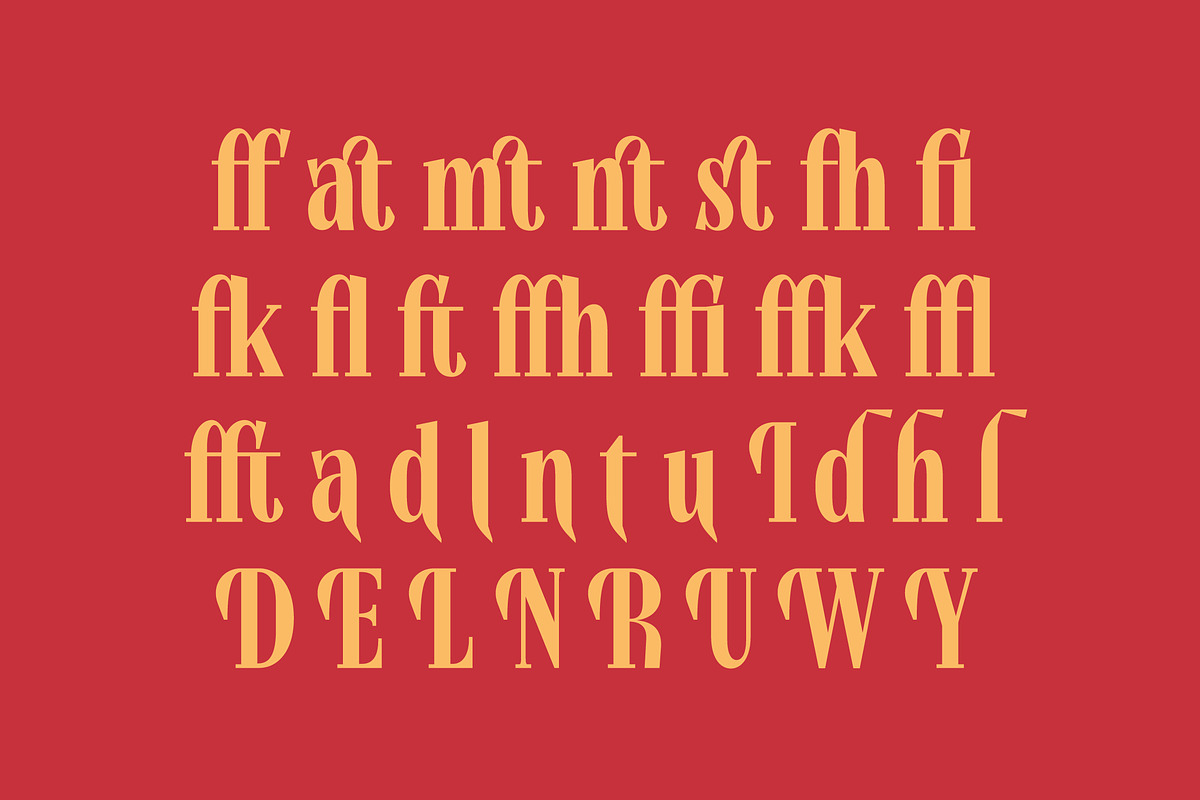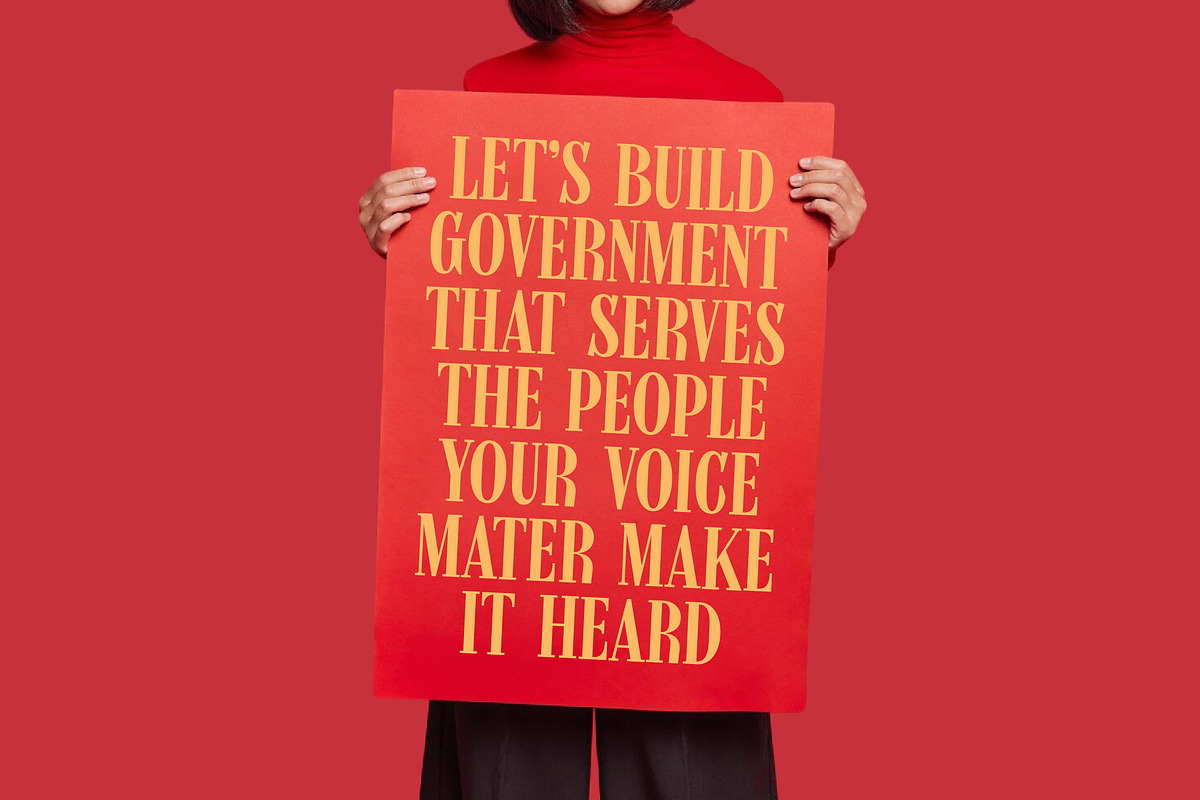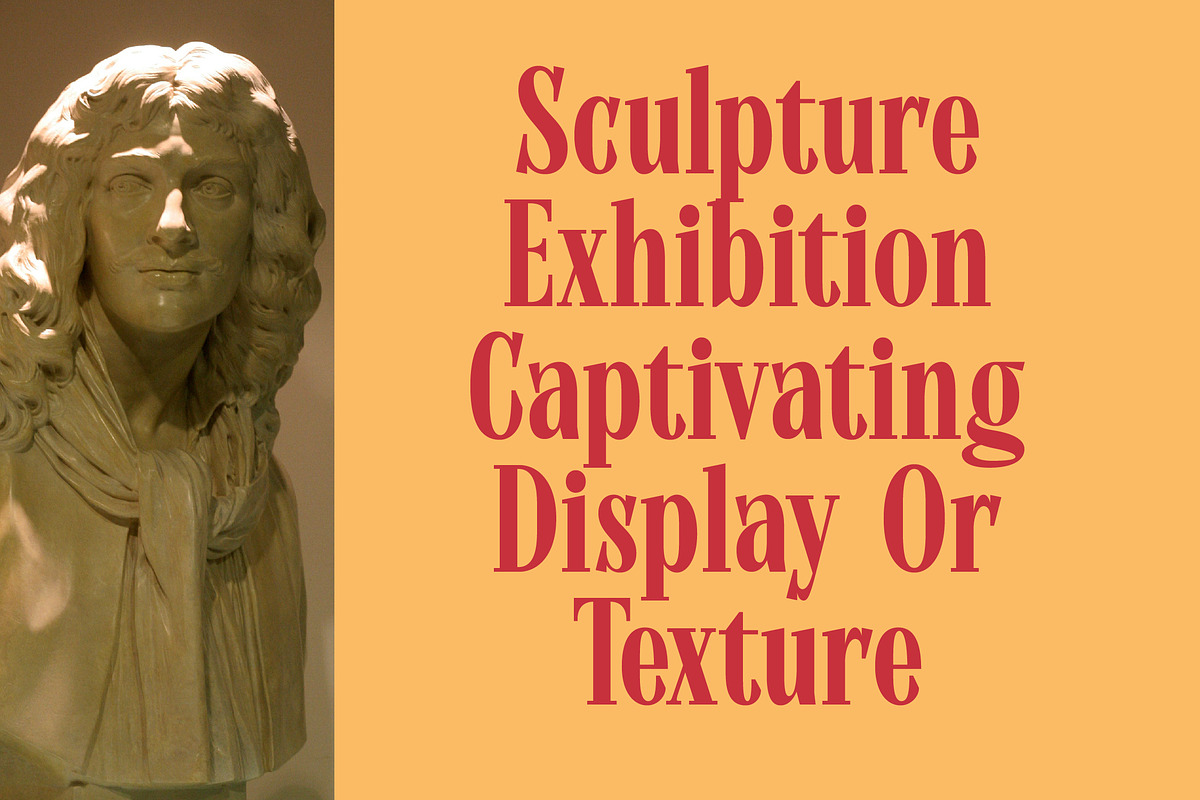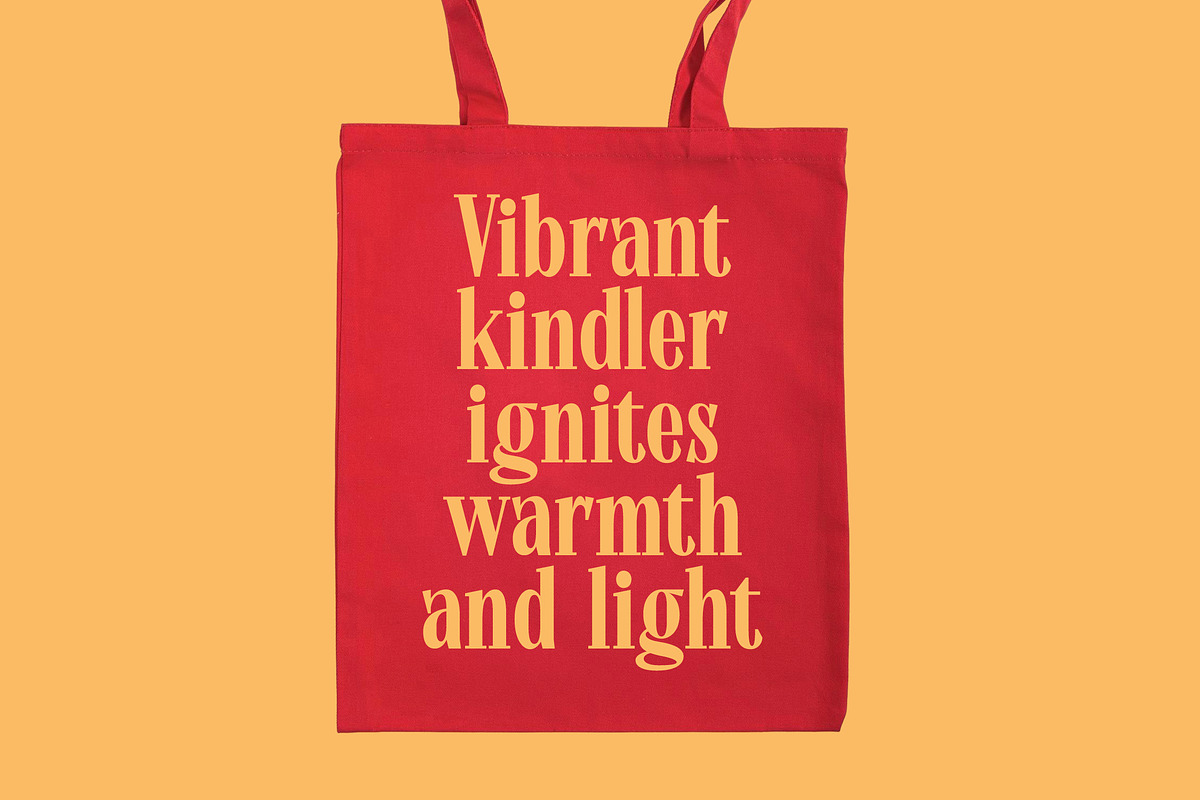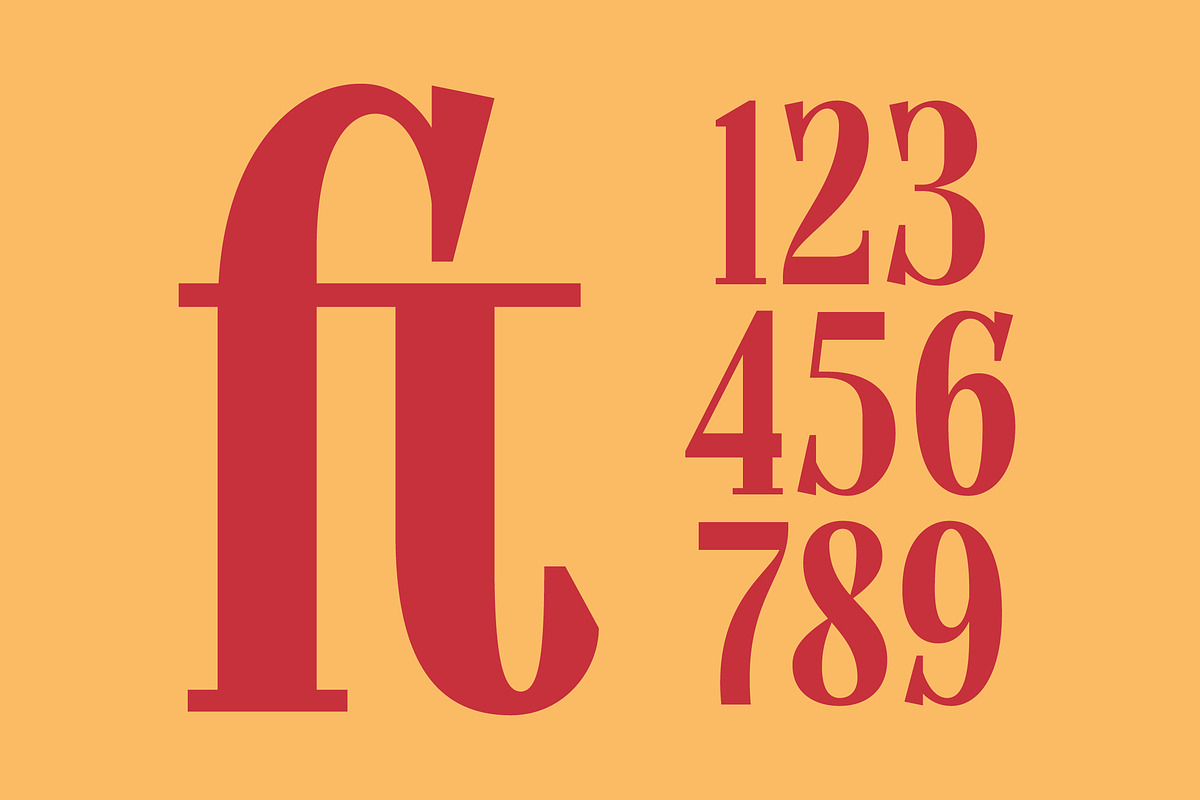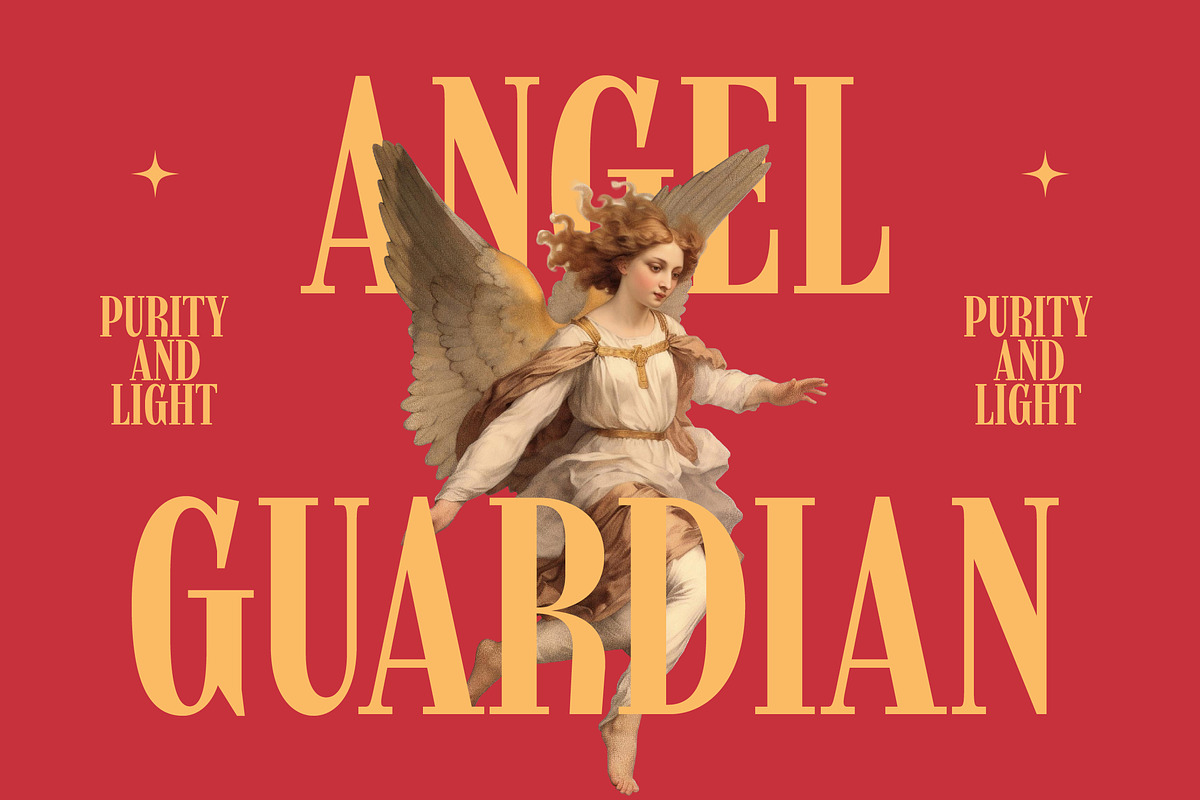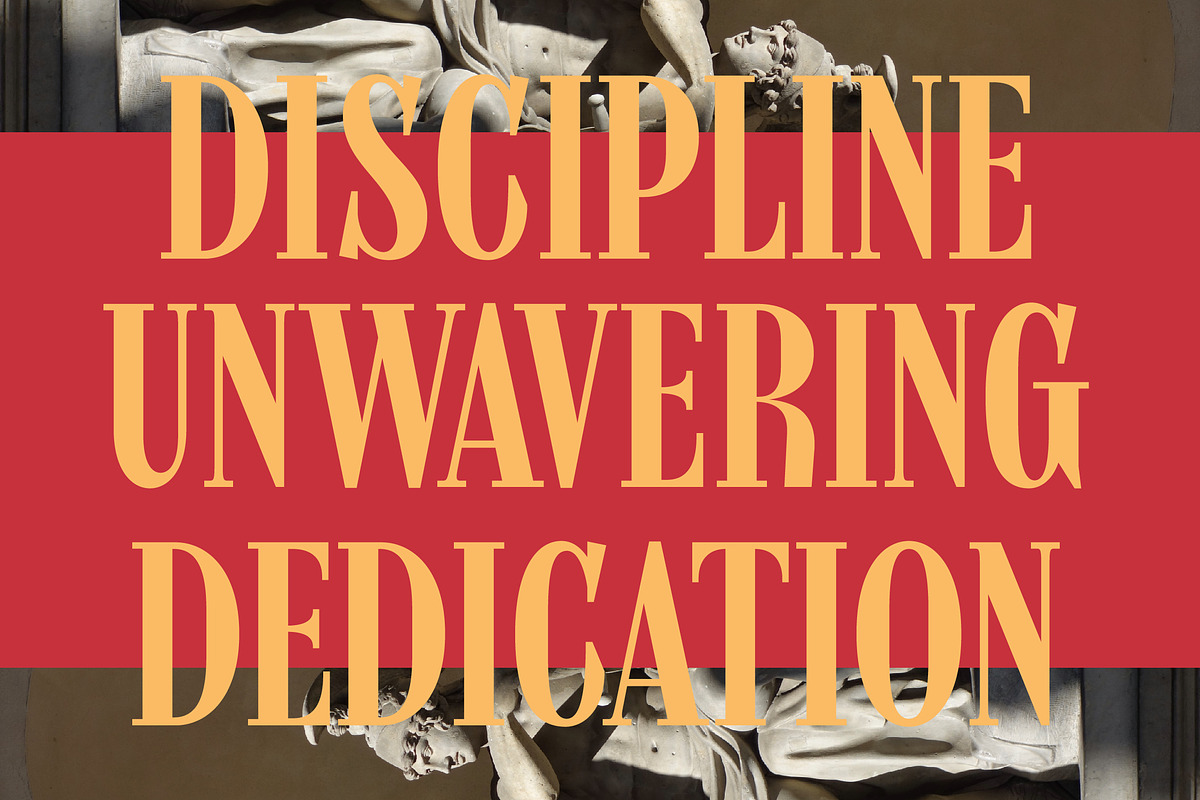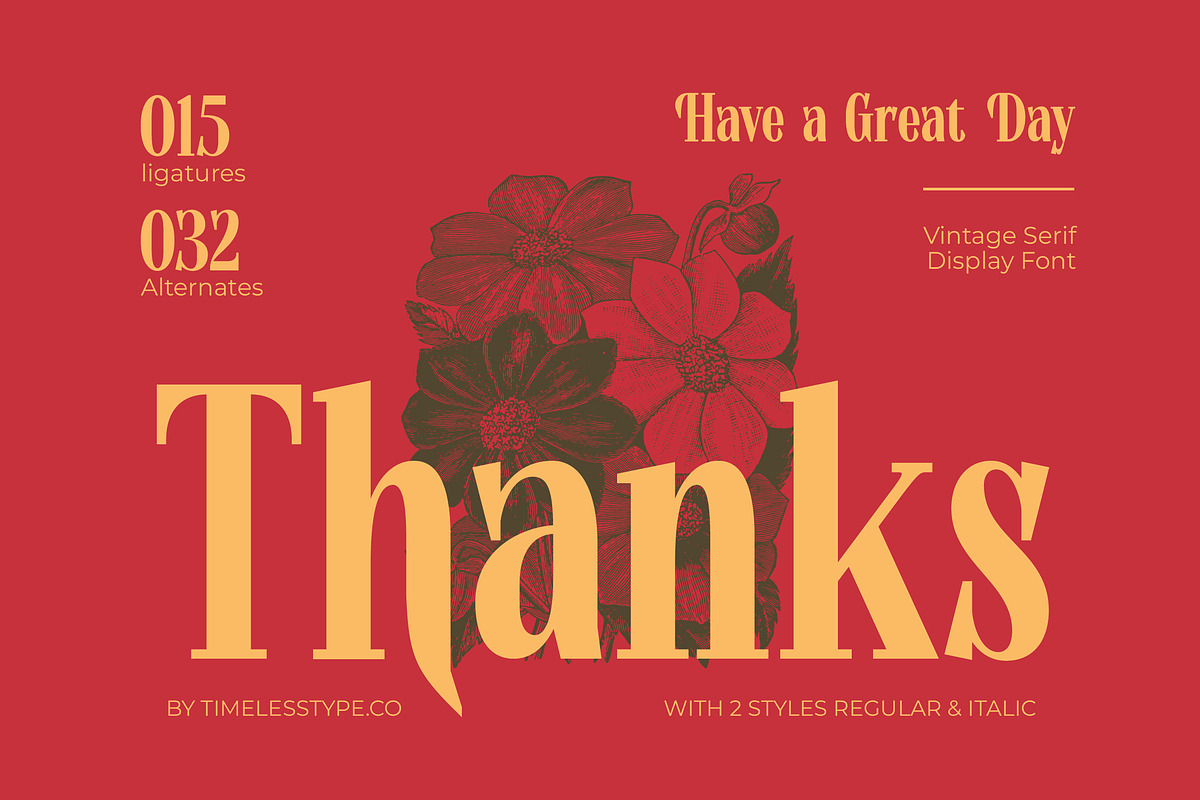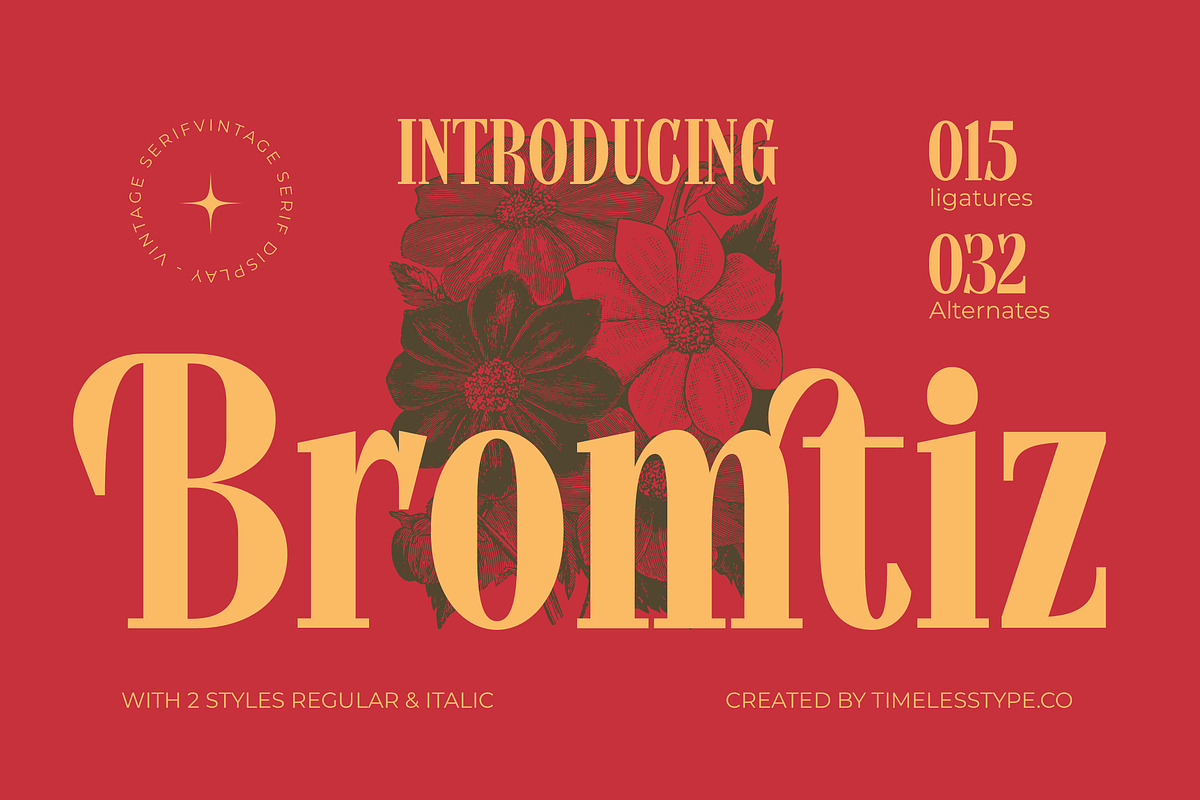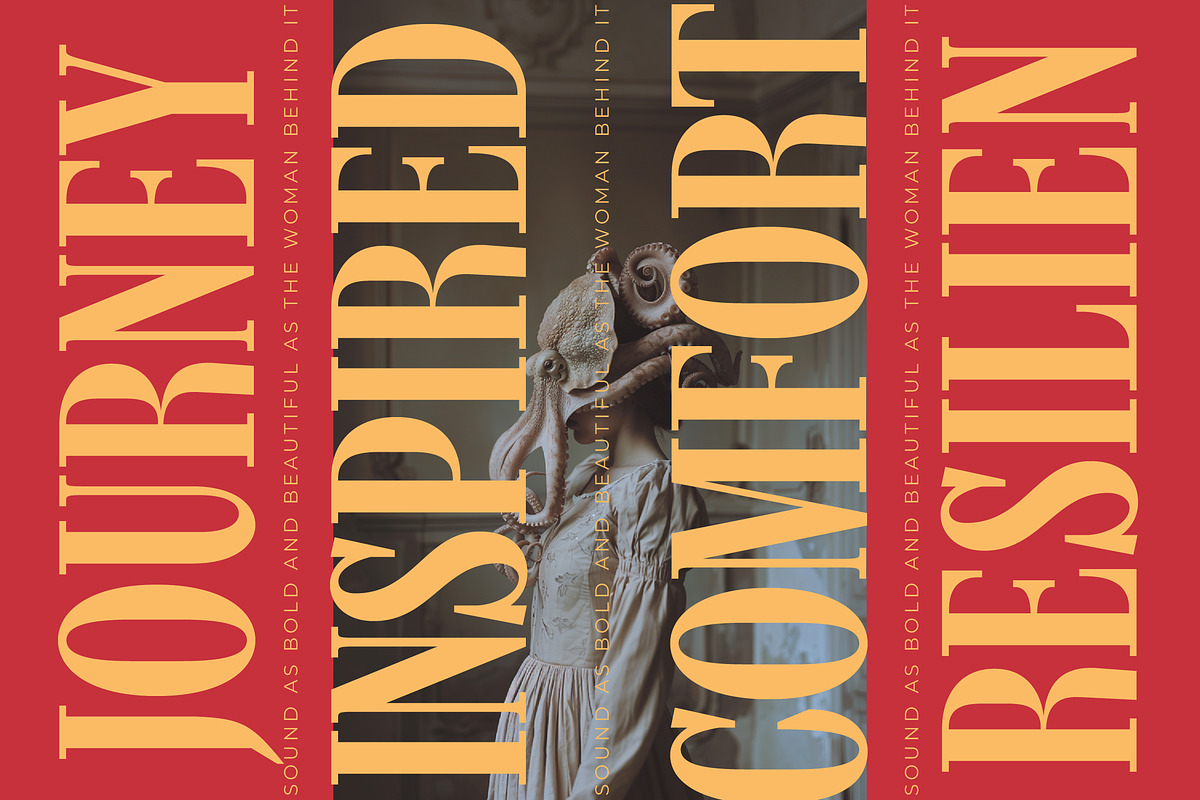
Bromtiz Elegant Vintage Serif
Bromtiz captures the essence of timeless elegance, blending classic sophistication with a bold, contemporary edge that demands attention. It is a typographic masterpiece designed for those who seek to create a lasting impression through refined and graceful letterforms.
Inspired by the romanticism of vintage botanical illustrations and the grandeur of classic editorial layouts, this font evokes a sense of nostalgic luxury. The interplay between sharp serifs and soft, flowing curves mirrors the delicate balance found in nature's most intricate floral patterns.
With its modern serif display qualities, this typeface exudes an aura of luxury typography that is perfect for high-end projects. The high-contrast serif design ensures a striking visual rhythm, making it an ideal editorial font for creating a significant branding impact across various media platforms.
Perfectly aligned with the current modern serif trend, this typeface brings a fresh perspective to editorial display fonts. Its unique personality caters to the growing demand for character-driven typography that breaks away from minimalist conventions to embrace soul and story.
This versatile typeface excels in logo design and comprehensive branding identity systems where a touch of class is required. It is equally at home in high-fashion editorial spreads, premium packaging, bespoke wedding invitations, and sophisticated fashion lookbooks.
The toolkit includes 15 distinct ligatures and 32 creative alternates to enhance your typographic compositions. It offers extensive multilingual capabilities, providing all the necessary international characters for seamless global communication across various design projects.
- Ligature 015 Alternate 032